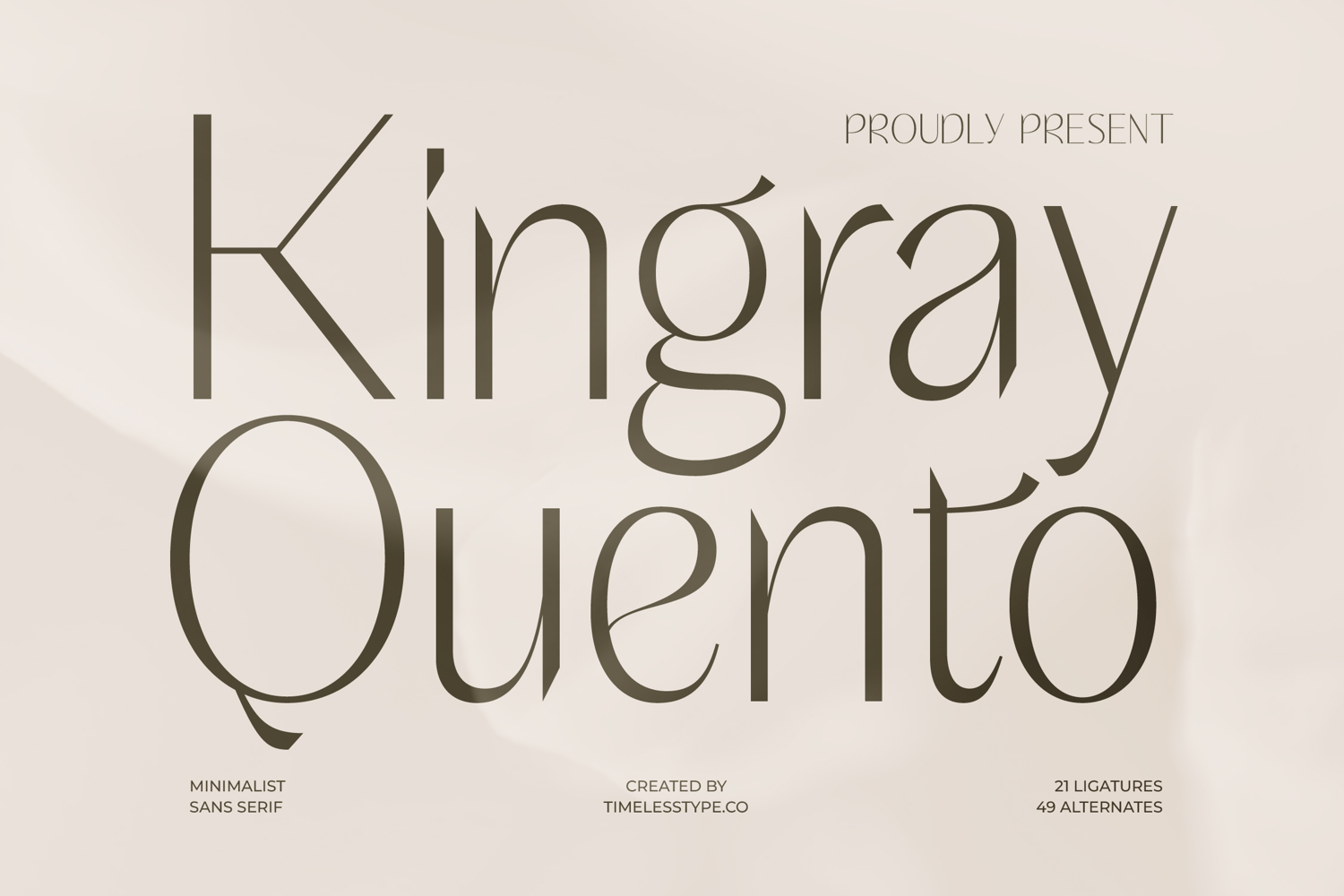
Kingray Quento - Minimalist Sans Serif Font
Elevate your designs with an unparalleled touch of sophistication. Introducing Font Kingray Quento - Minimalist Sans Serif Font Sans Serif, a typeface that masterfully blends a clean, minimalist aesthetic with an undeniably expressive character. This font is crafted for those who seek to imbue their projects with modern elegance and a distinctive visual appeal that captivates and leaves a lasting impression.
Discover the nuanced beauty of exquisite typography. This distinctive sans serif boasts a delicate interplay of strong vertical lines and subtle, graceful curves, creating a visually compelling experience. Its inherent high-contrast elements and thoughtful design imbue every word with a sense of refined luxury, making it exceptionally expressive for headline and display usage. The extensive set of 21 ligatures and 49 alternates offers unparalleled creative flexibility.
Extend your brand's reach without compromising on style. With its extensive multilingual support, Font Kingray Quento - Minimalist Sans Serif Font Sans Serif adapts seamlessly across global markets, making it incredibly versatile for international projects. This ensures your message maintains its intended impact and professional polish, regardless of language, strengthening your brand's worldwide presence and appeal.
Perfect for projects demanding an air of prestige. Font Kingray Quento - Minimalist Sans Serif Font Sans Serif is ideally suited for luxury branding, high-end editorial layouts, sophisticated packaging, fashion campaigns, and impactful headlines. It's the ultimate choice for designers seeking to convey an impression of exclusive quality, modern refinement, and timeless style. Invest in this typeface to elevate your visual narratives and connect with your audience.